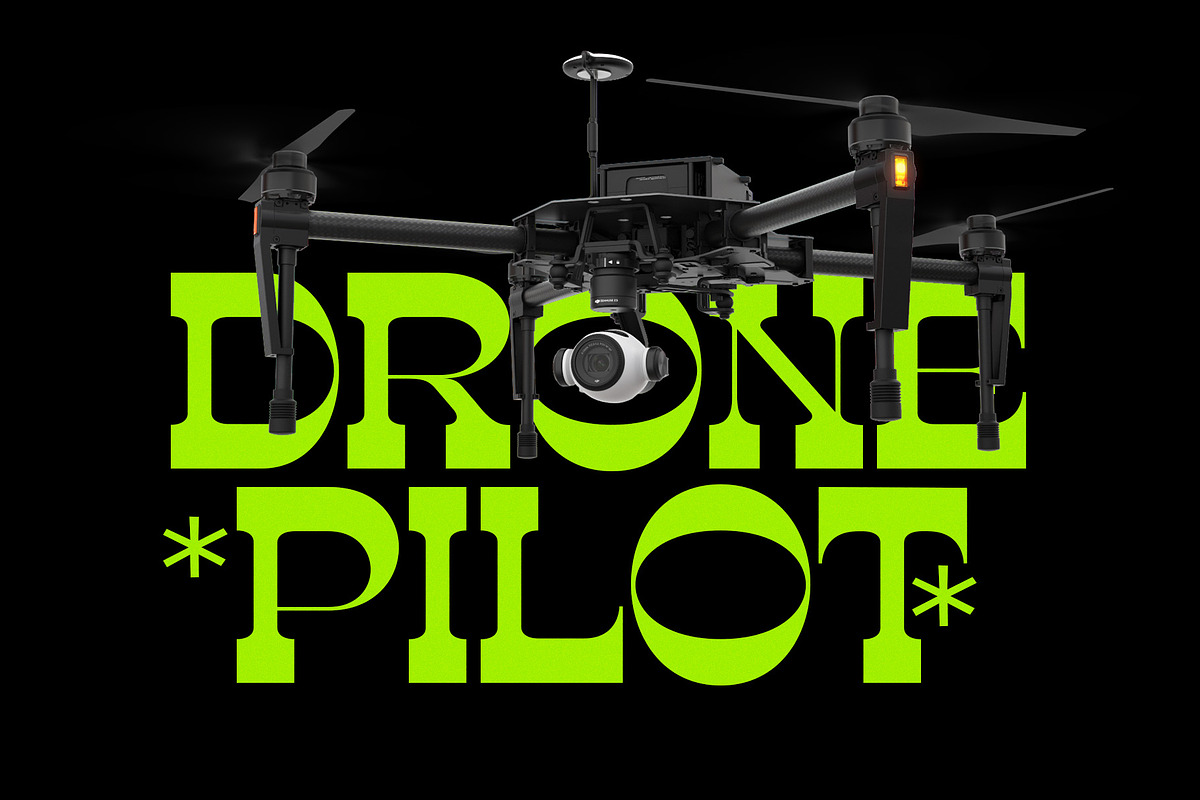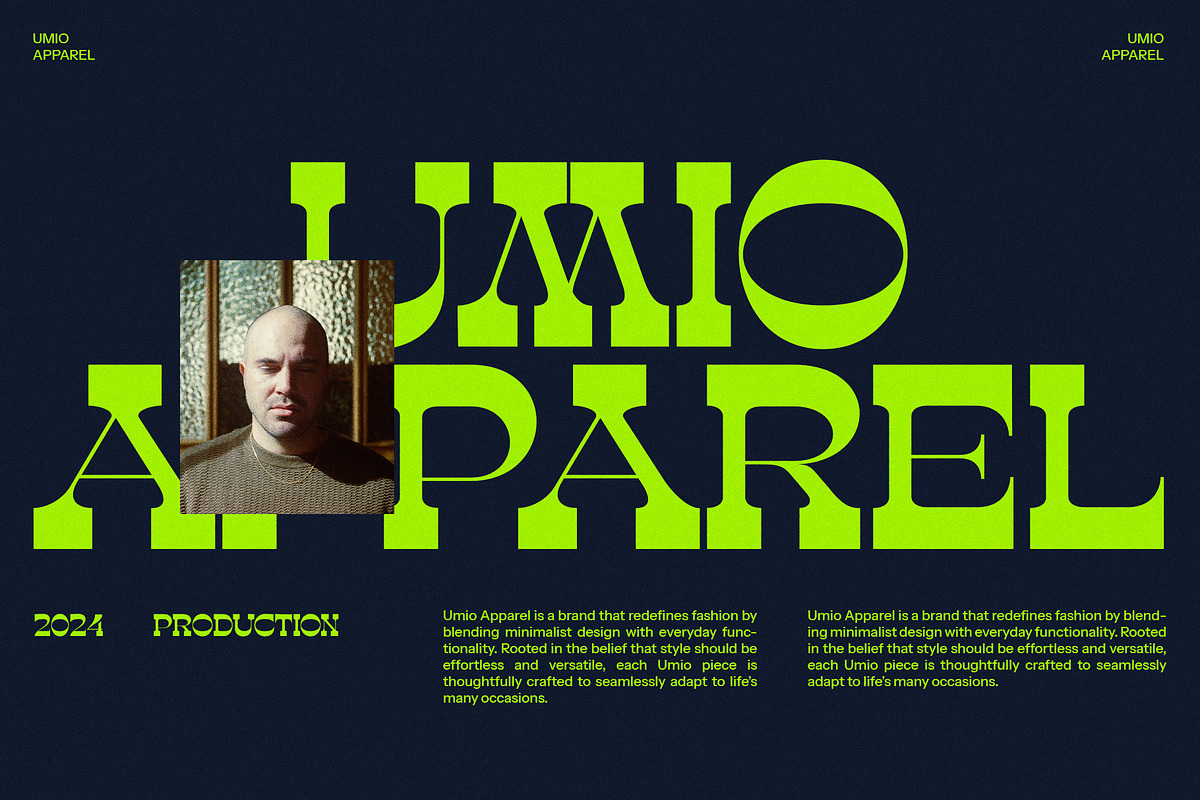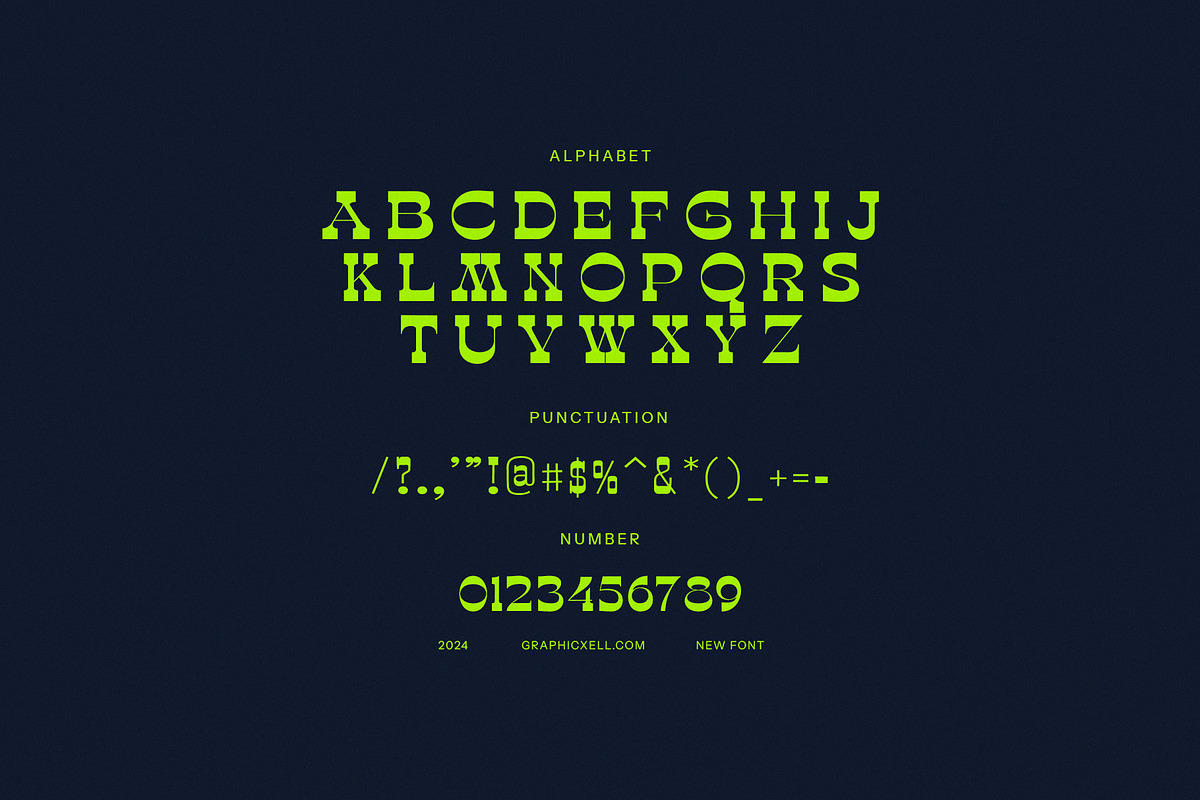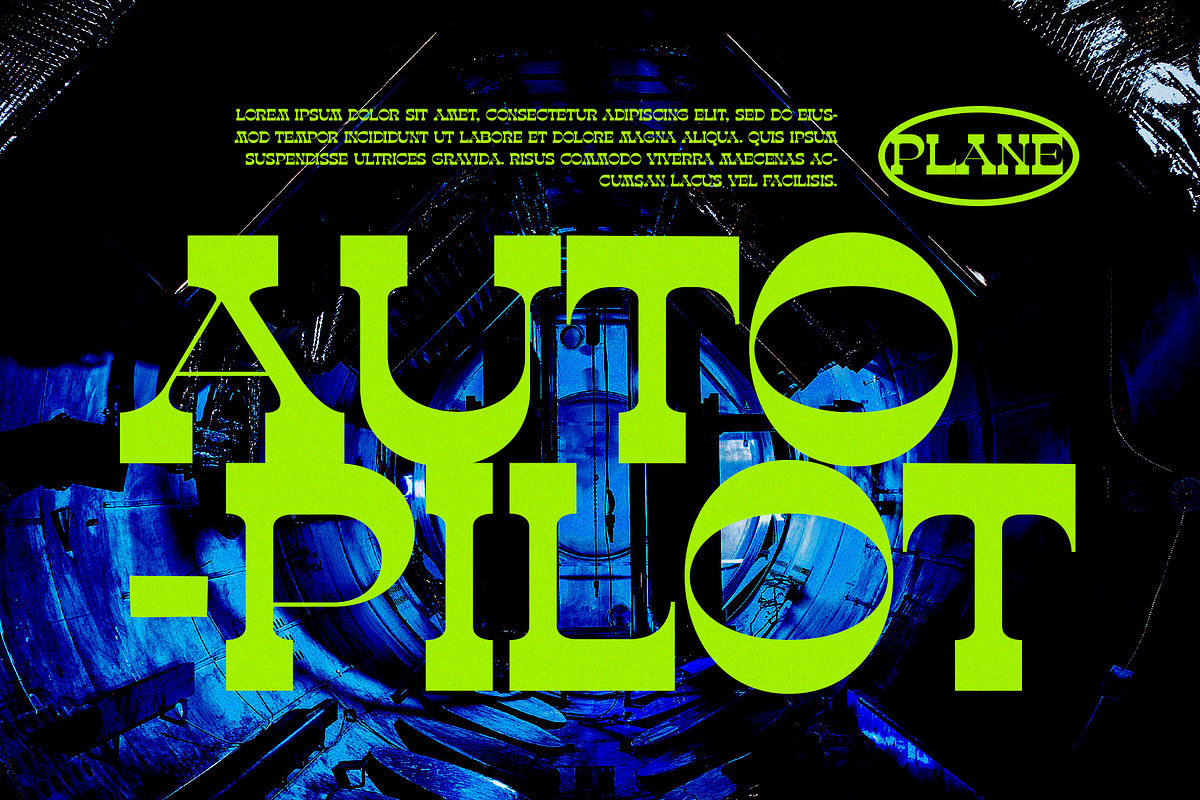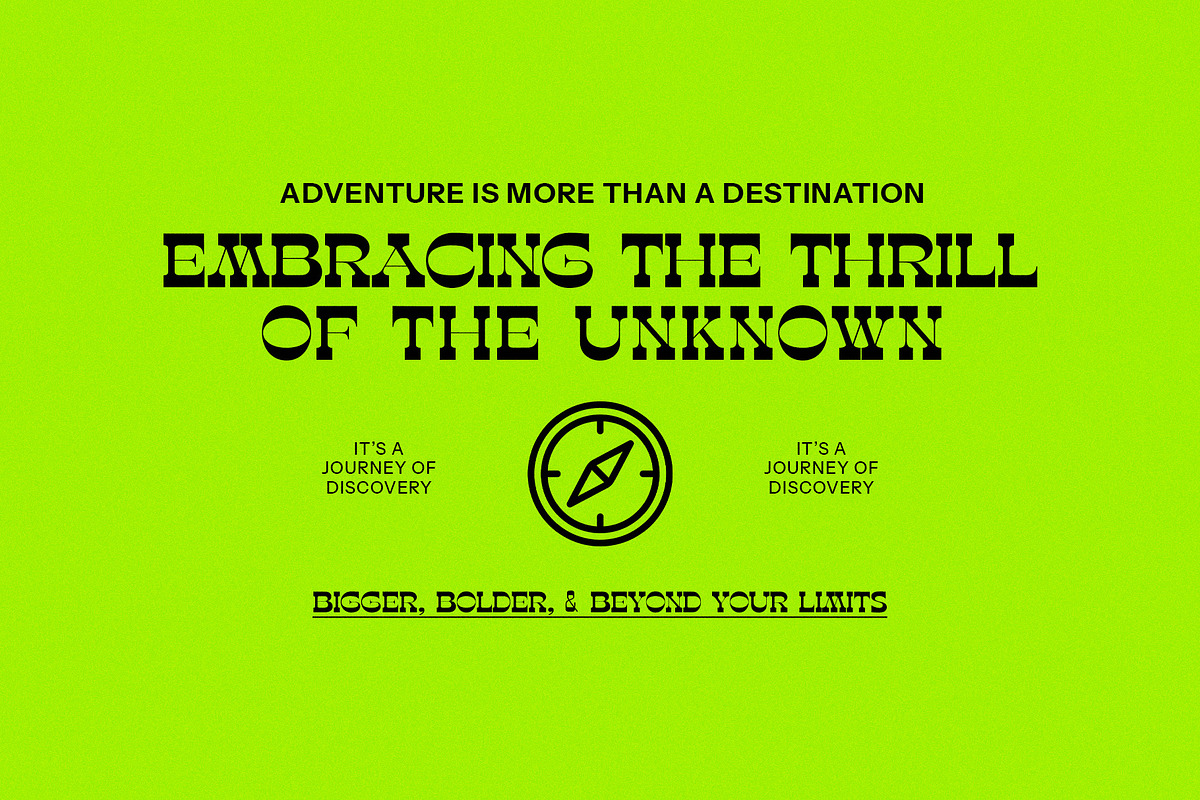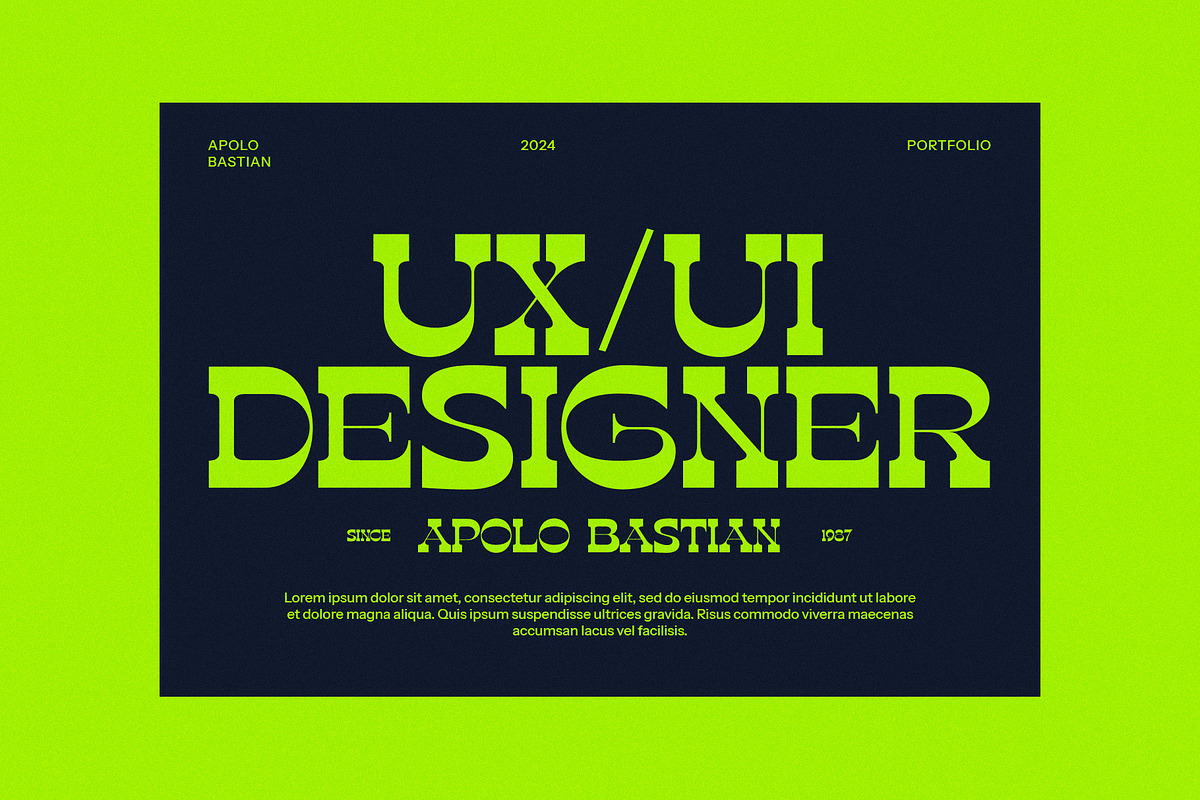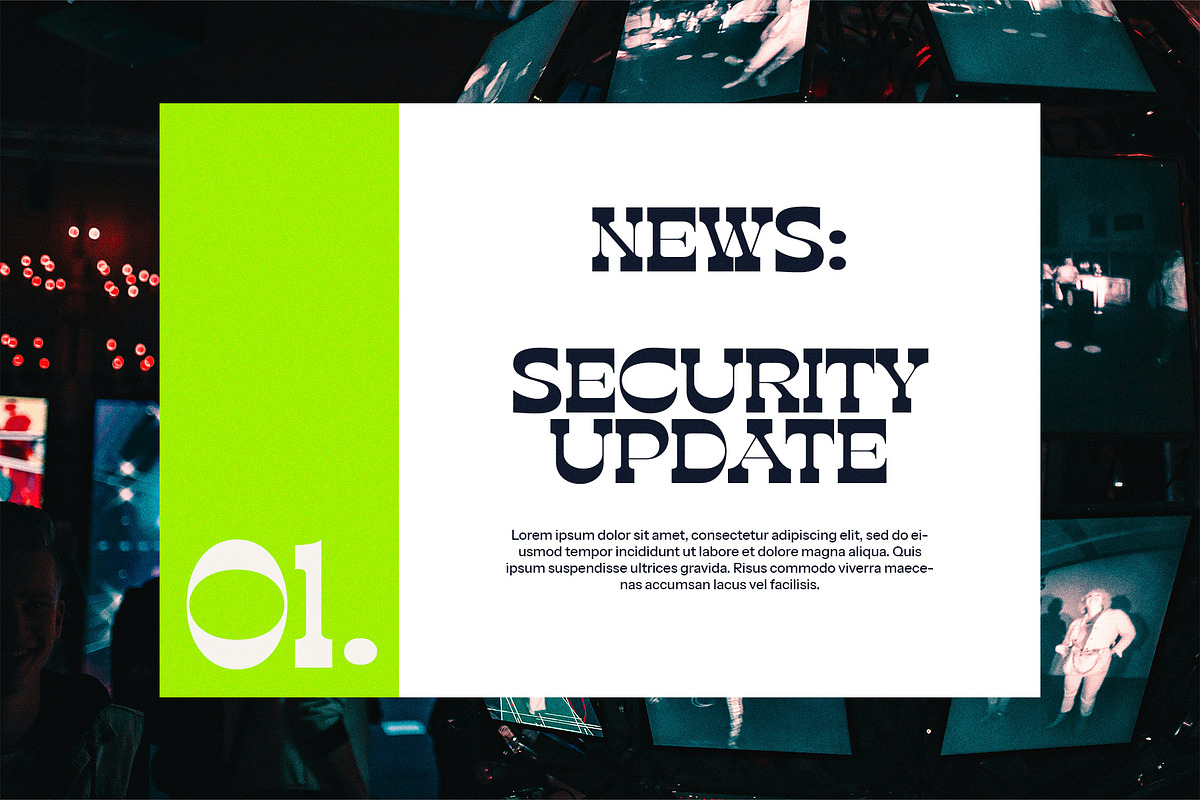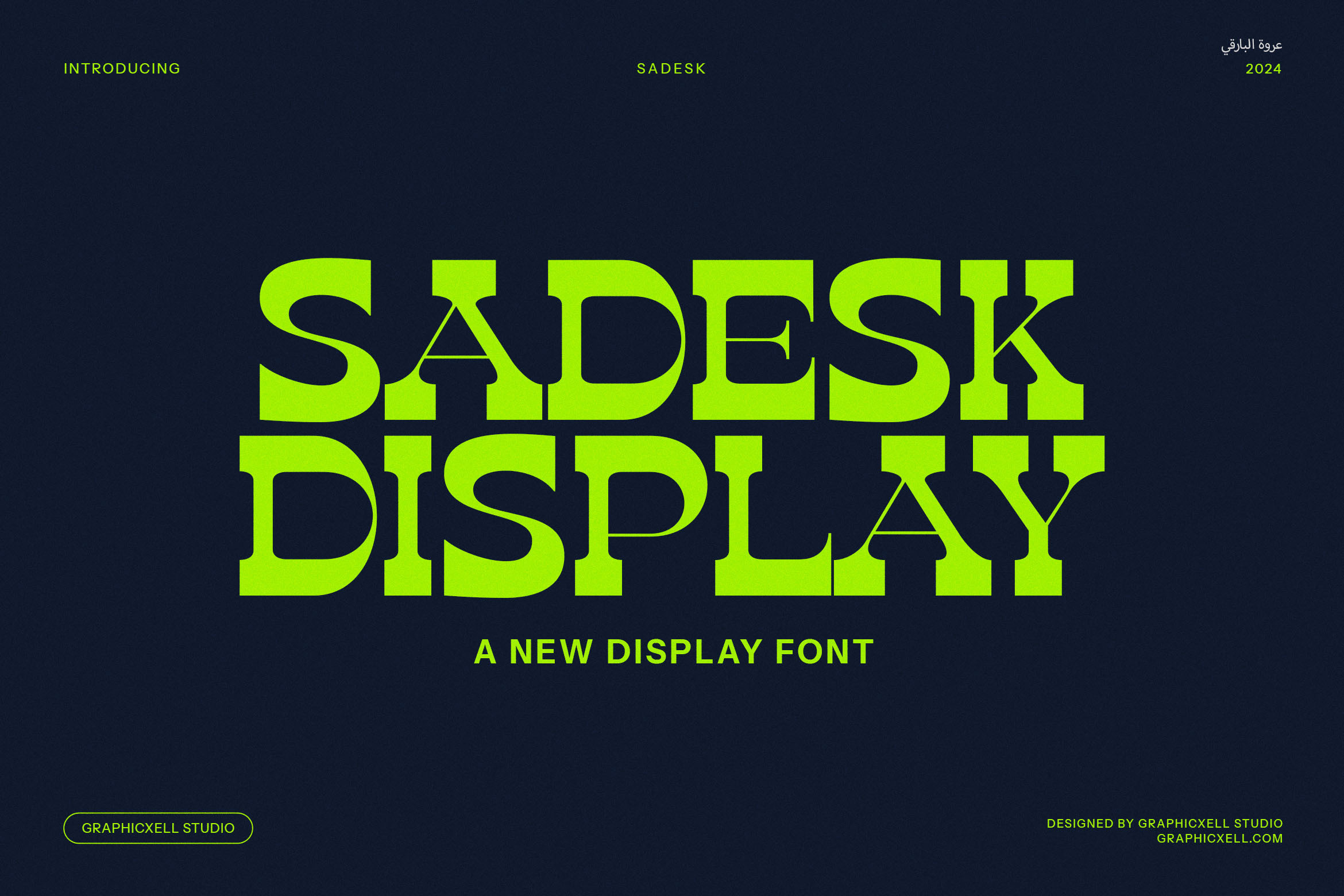
Sandesk Display Serif Font
Sandesk Display Font – A Unique Slab Serif with a Vintage Technology Vibe
Introducing Sandesk Display Font, a captivating slab serif typeface designed to blend vintage charm with a modern technological aesthetic. With its bold, thick body and square feet, this font stands out as an ideal choice for projects requiring both strength and personality. Its unique design features a subtle contrast—a thin section that adds a touch of vintage elegance, making it perfect for a wide variety of creative applications.
Sandesk Display Font is versatile, lending itself beautifully to logos, branding, websites, magazines, advertisements, and more. The font's bold, sturdy appearance exudes a sense of professionalism, while the thin sections bring in a sense of nostalgia, evoking a classic feel. Whether you're designing for tech startups, food brands, or retro-inspired products, Sandesk delivers an eye-catching, balanced look.
This font is ideal for modern branding, logo design, and web typography. Its strong, readable structure ensures your message is clear and impactful, while its unique blend of vintage and modern elements creates an unforgettable visual identity. Whether used for posters, advertisements, or product packaging, Sandesk Display Font elevates any project with its distinctive style and versatility.
Perfect for technology, vintage aesthetics, and creative marketing, Sandesk is your go-to typeface for projects that need to stand out. Embrace the fusion of old-school charm and contemporary edge with this exceptional font.